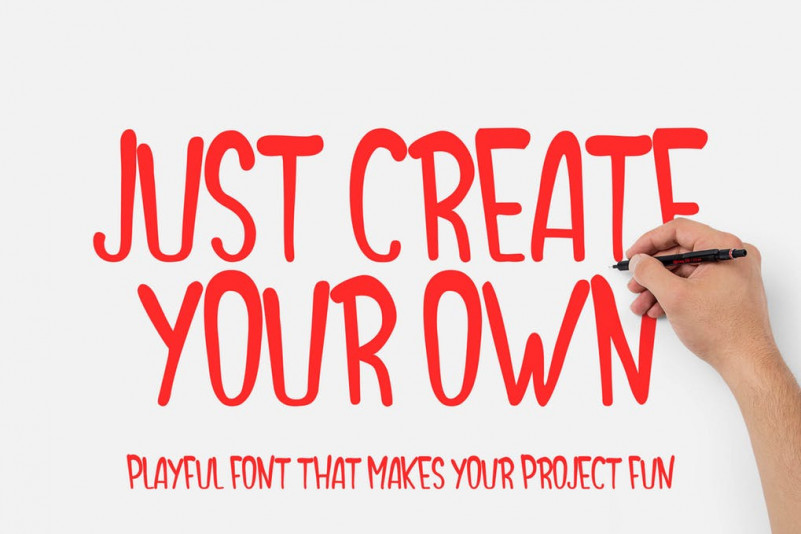
Create Your Own Font
Create Your Own is Playfull Font. Very very fun for people who will make some party poster, party invitation, halloween party, and any other fun project